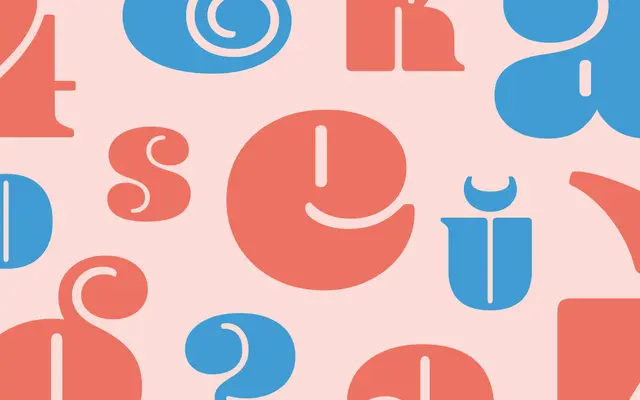
Blenny
Dalton Maag · Spike Spondike · 2014
A single-weight fatface display by Spike Spondike with retro curves, supporting Latin and Thai.
Dalton Maag's Blenny is a fatface display by Spike Spondike, designed and developed 2014 to 2020. Its single Black weight covers Latin and Thai with support for over 860 languages. OpenType features include alternate &, discretionary ligatures and a fauna icon set. The page frames it as suitable for branding, bold headlines and enticing product labels.
Dalton Maag describes Blenny as a fabulously curvaceous fatface display font with soft, voluptuous curves and a retro feel, suited to branding, bold headlines and product labels.